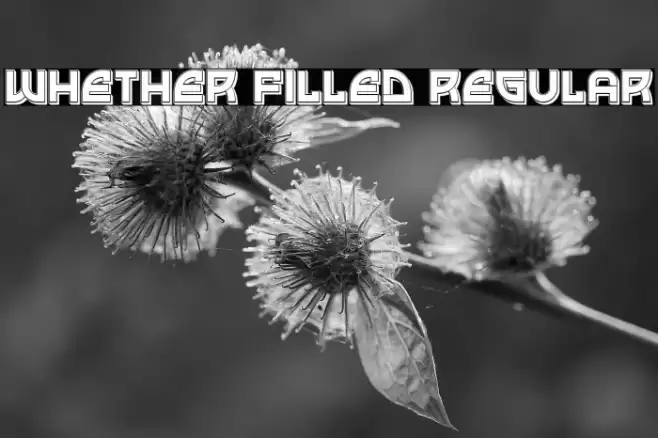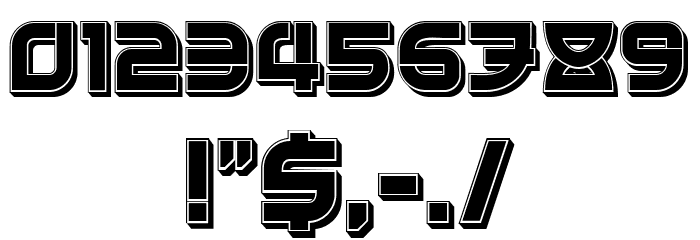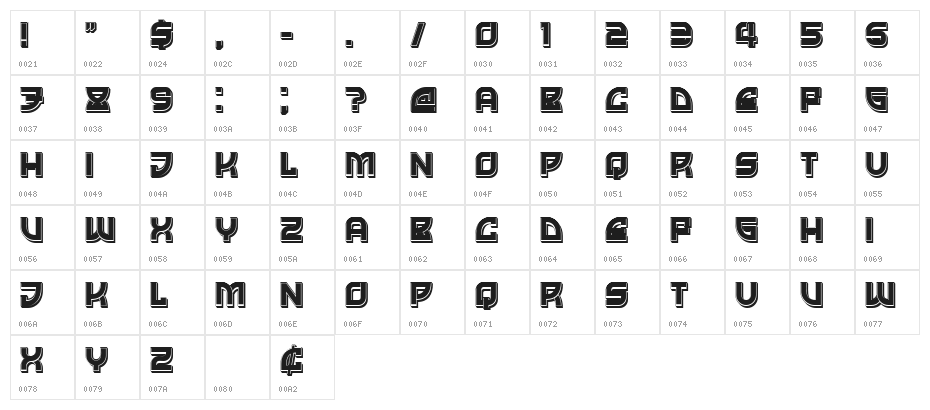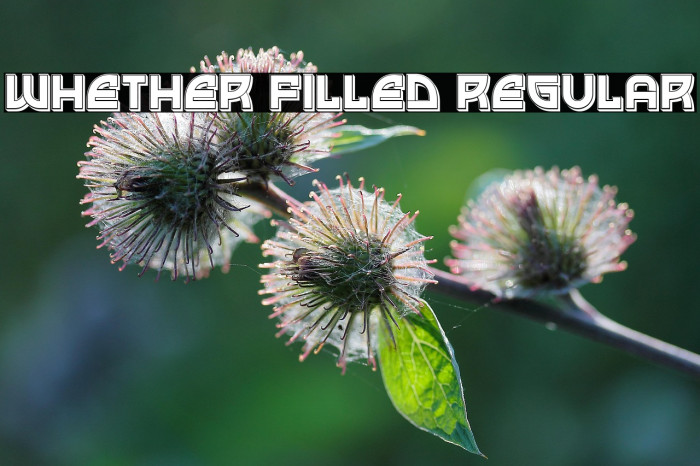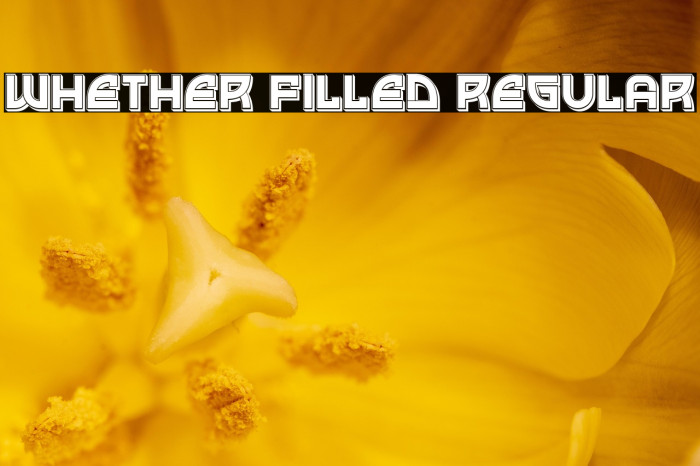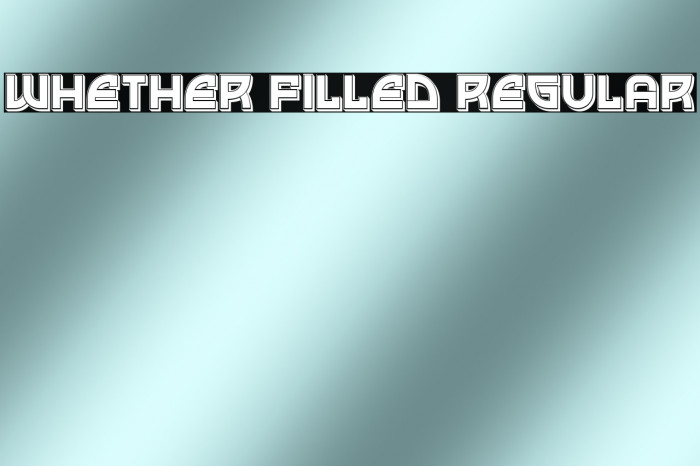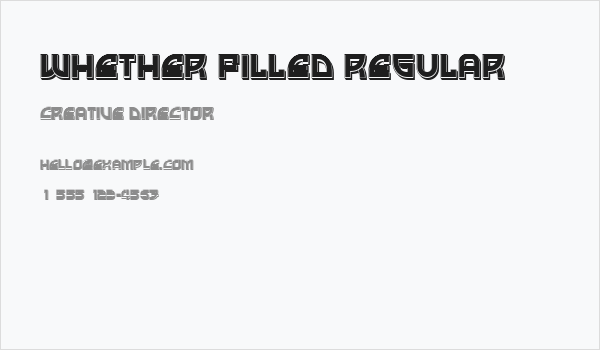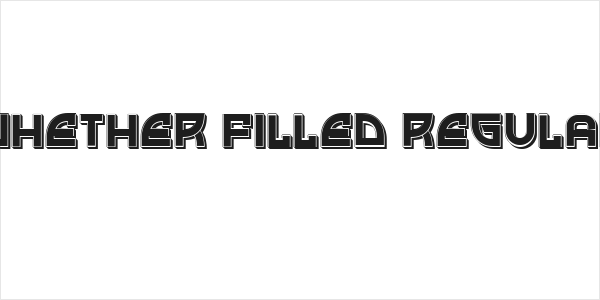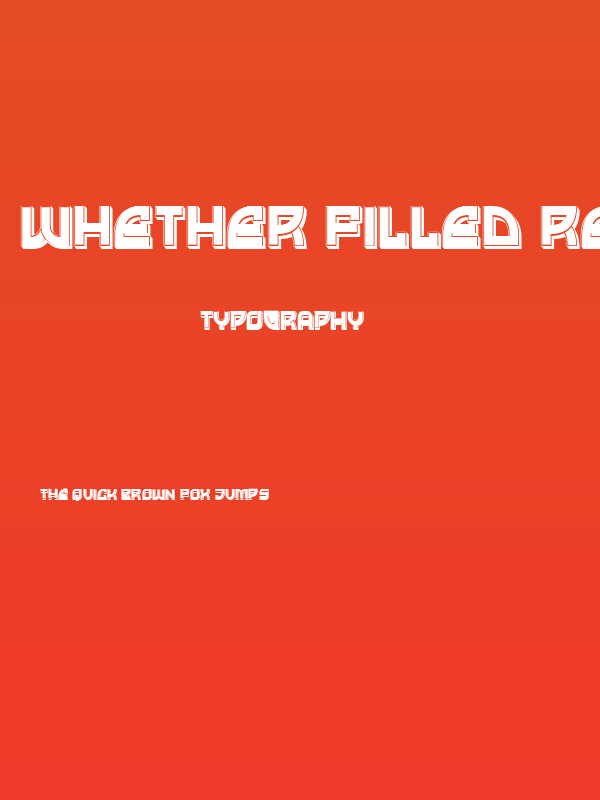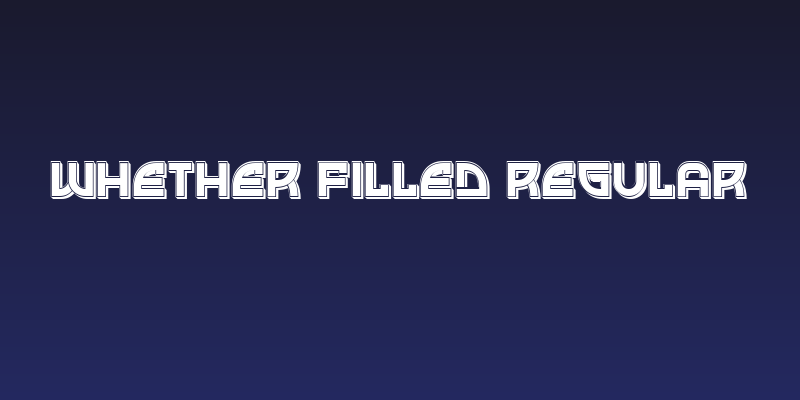
Whether Filled Regular Font
Whether Filled Regular Description
This font features a bold and geometric design with a three-dimensional effect. The characters are outlined with a thick black border, creating a striking contrast against the white fill. Each letter and number is crafted with sharp angles and clean lines, giving it a futuristic and industrial feel. The font maintains a consistent width across all characters, ensuring uniformity and balance. Its unique style is both eye-catching and versatile, suitable for a variety of creative applications. The special characters are designed to match the bold aesthetic, making them seamlessly integrate with the rest of the font.
A bold, geometric font with a three-dimensional effect and strong contrast from Uncategorized fonts.
- Proposed Projects: Ideal for use in posters, logos, video game graphics, and futuristic-themed designs.
- Overall Style: Futuristic, Industrial